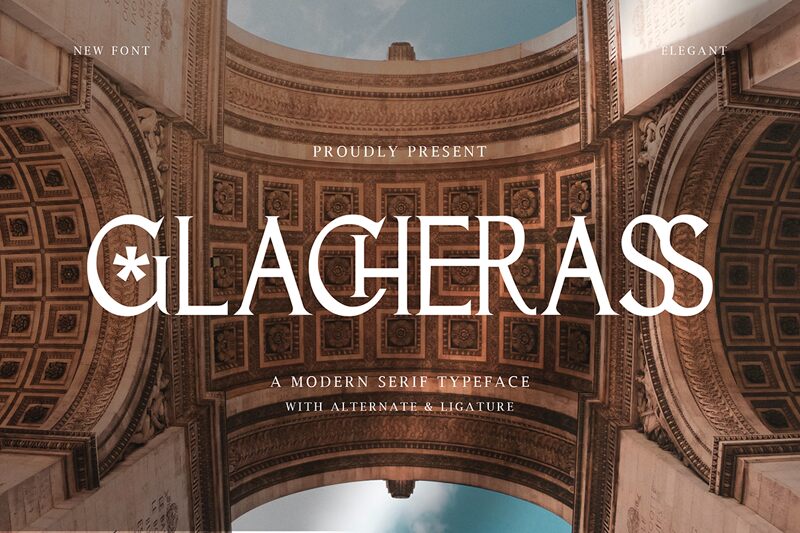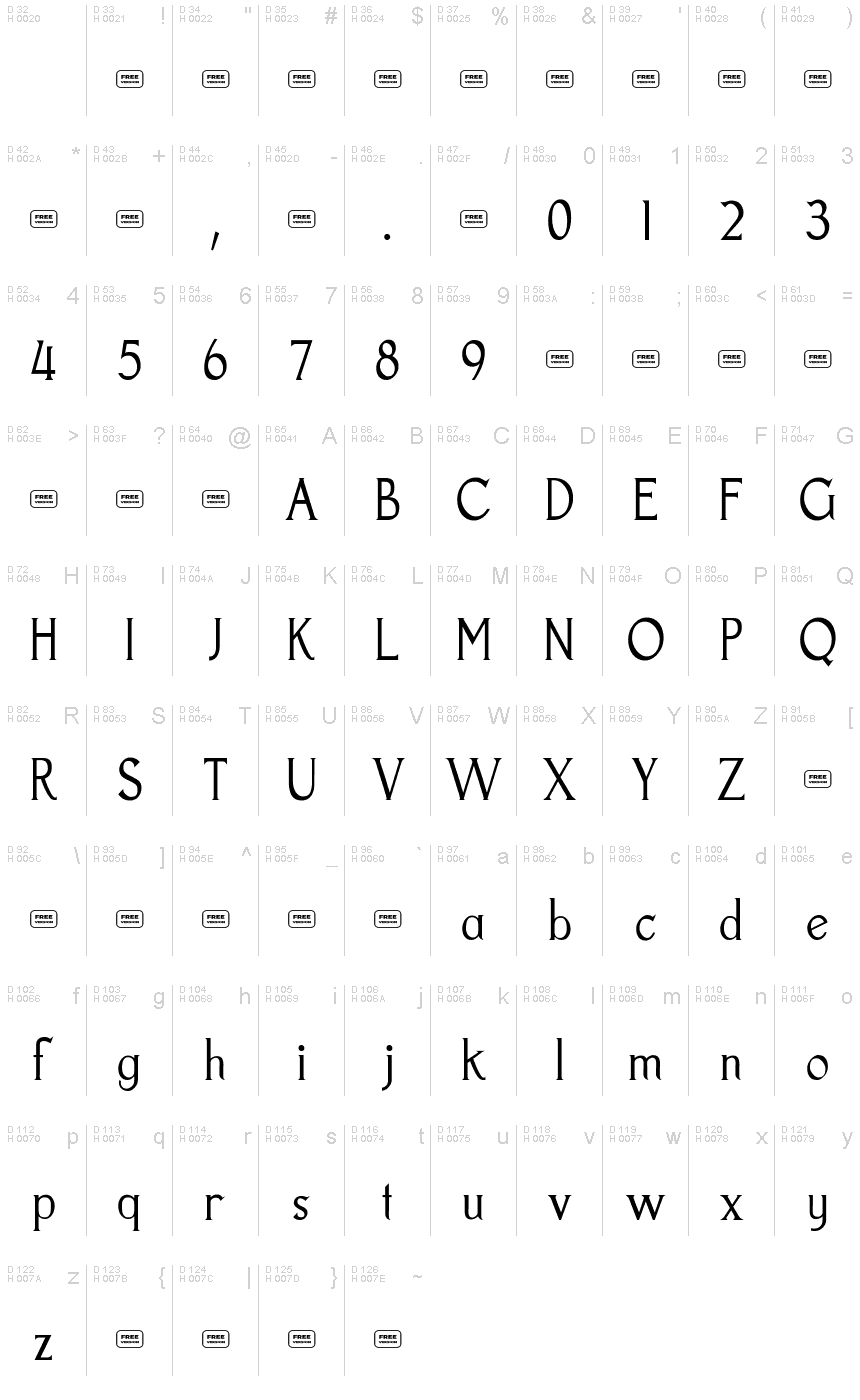
Glacherass, a creation by Typefactoryco, stands as a testament to the harmonious blend of traditional serifs with modern sensibilities. This semi-light and semi-condensed typeface exudes an understated elegance that captures both the classic essence and the current design trends in typography. Its polished curves and sleek lines lend it an air of sophistication that is versatile enough to enhance a wide array of creative projects.
With Glacherass, your designs will command attention through its exquisite and subtle aesthetic. Whether you are crafting luxurious branding materials, editorial layouts with a chic twist, or any design that demands a touch of class without overwhelming the senses, this font is equipped to deliver with grace and style. The adaptability of Glacherass ensures it can slide seamlessly into diverse contexts while maintaining its distinct character—a truly modern serif for today's designer.